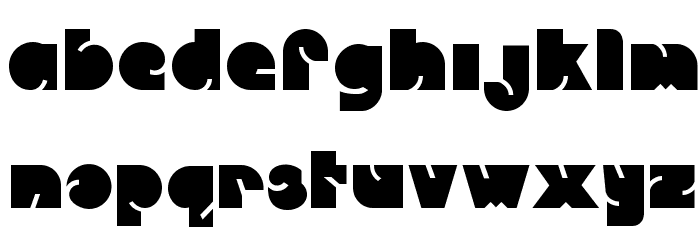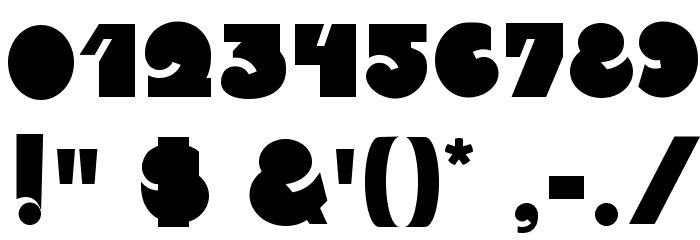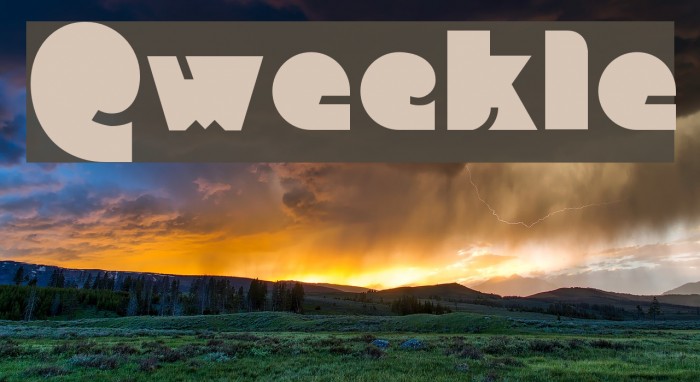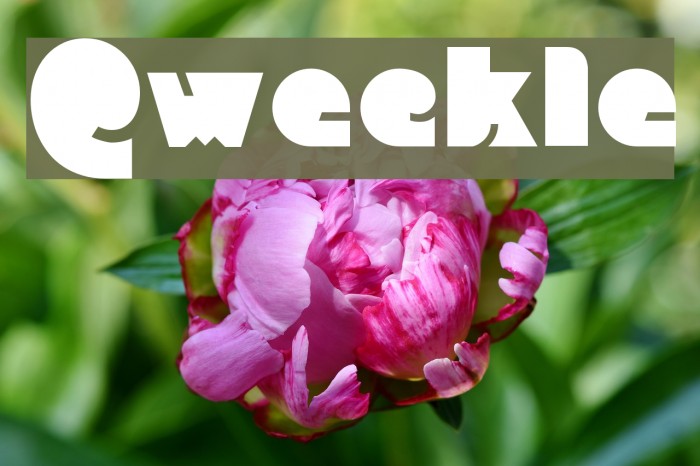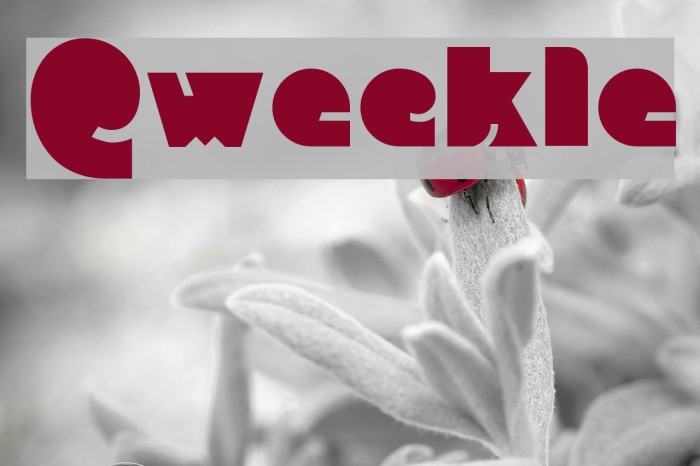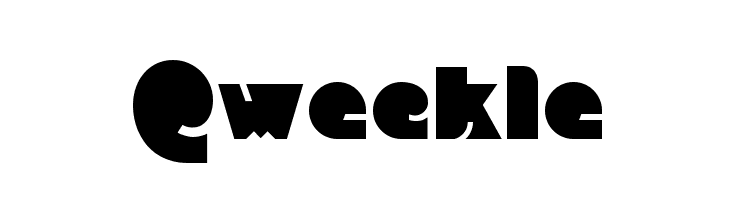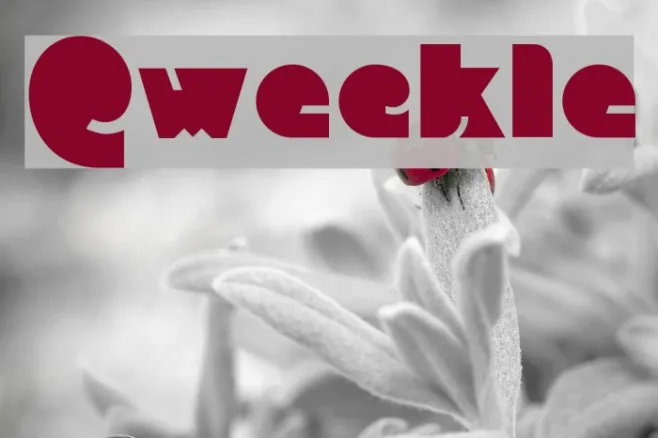
Qweckle Font
This font features a bold, geometric style with strong, angular shapes and a playful, modern aesthetic. The characters are constructed with a mix of solid forms and negative space, creating a dynamic and eye-catching appearance. The uppercase letters are particularly striking, with a blocky, almost stencil-like quality, while the lowercase letters maintain a consistent style with rounded edges and unique cutouts. Numbers and special characters follow the same design principles, ensuring a cohesive look across all glyphs. The font's distinctiveness makes it ideal for projects that require a bold statement or a creative touch.
A bold, geometric font with playful, angular shapes and dynamic negative space.